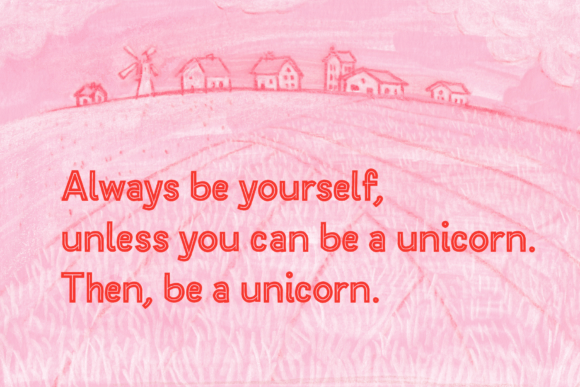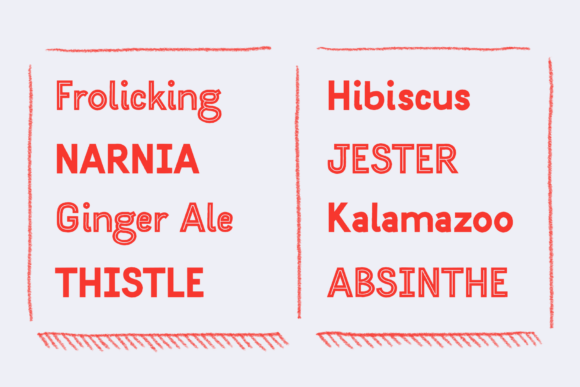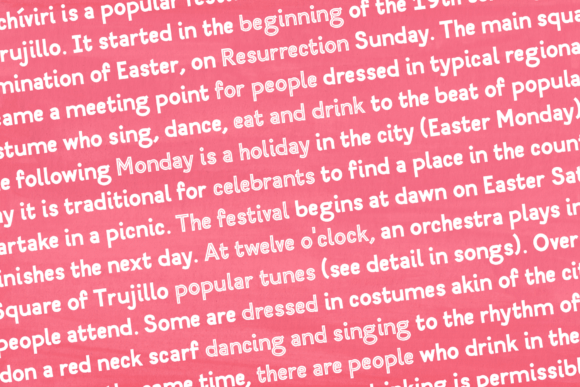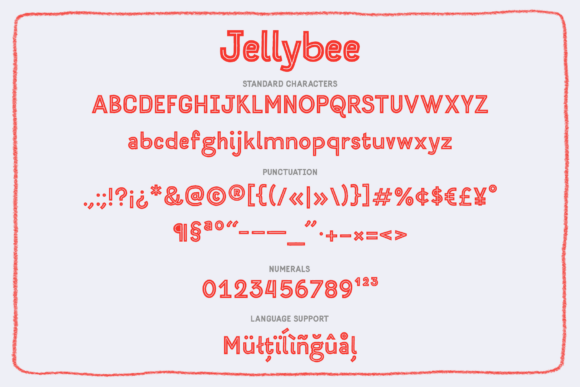
Introduction to Jellybee Font
Jellybee is a hand drawn, rough edged quirky sans serif typeface that is ideal for use together with hand drawn illustrated artwork.
It couples the organic and friendly look of a hand drawn typeface with the legibility and clarity of a sans serif Jellybee Inline will particularly work well with holiday and celebration related illustrations as well as childrenโs books, greeting cards, etc.